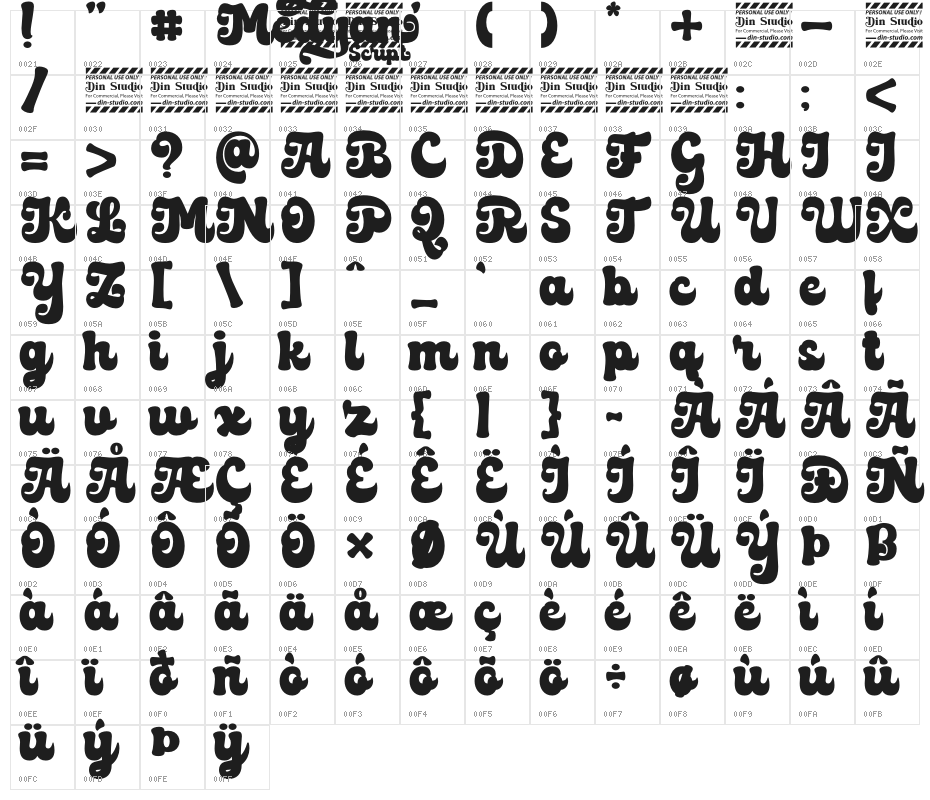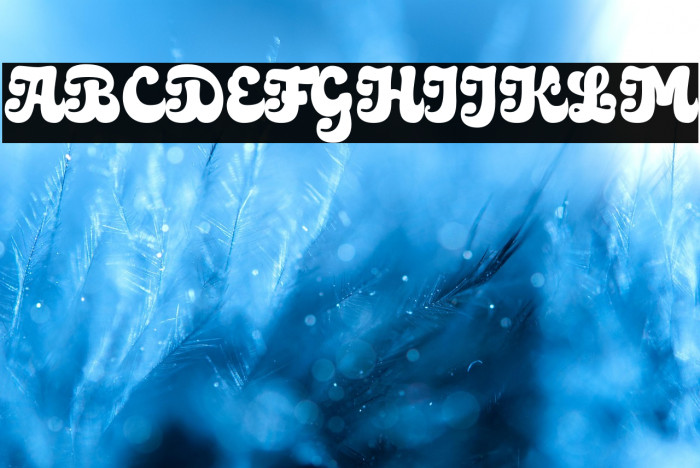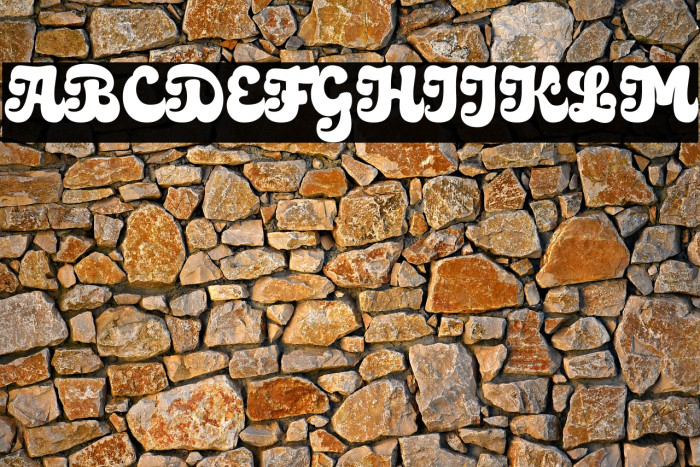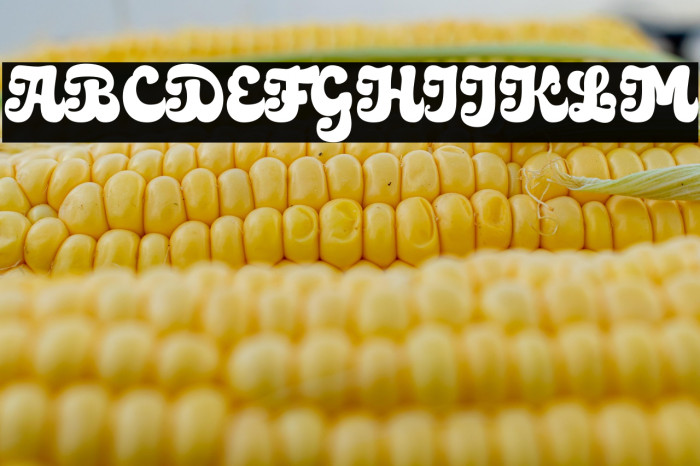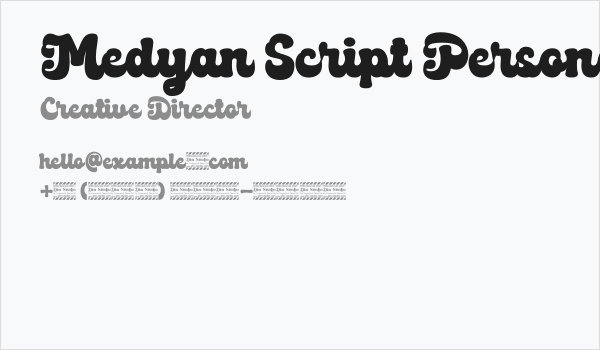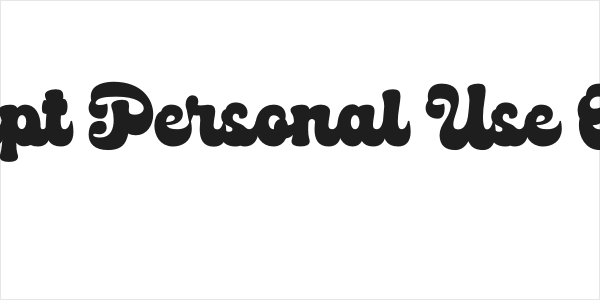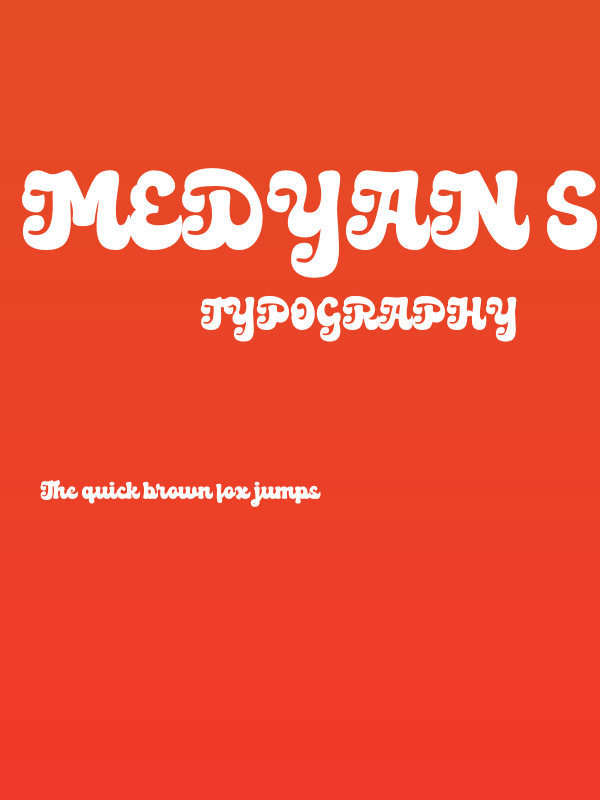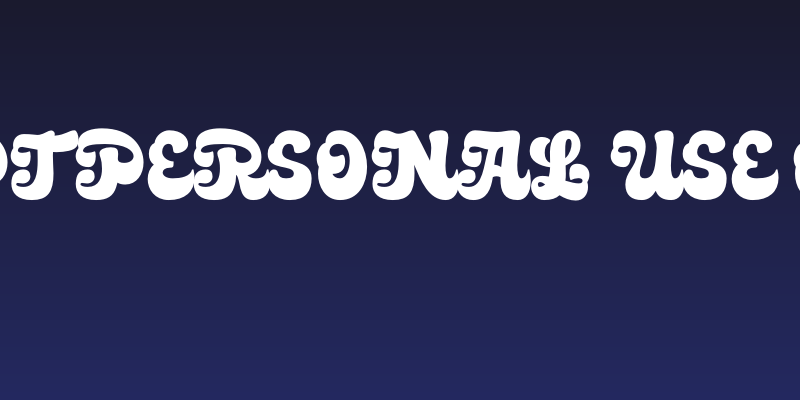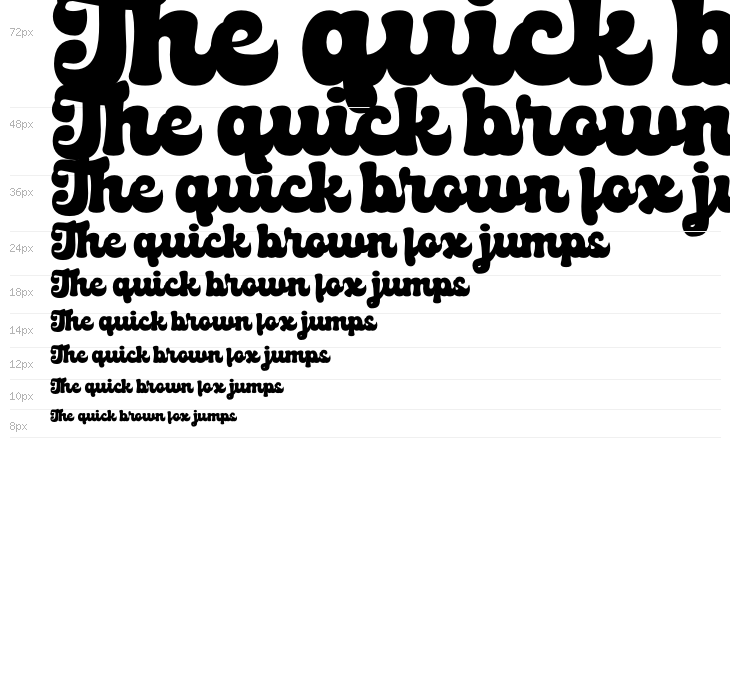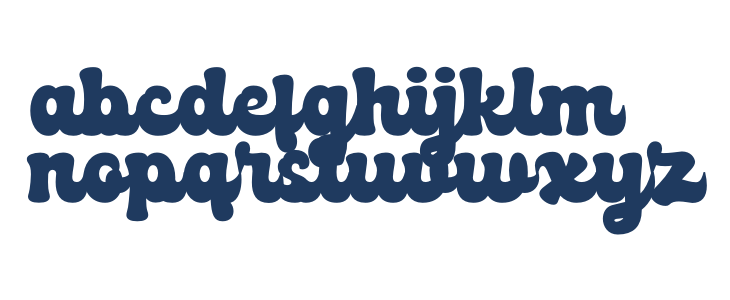
Medyan Script Personal Use Only Regular Font
Medyan Script Personal Use Only Regular Description
This font features a bold, playful script style with a strong presence. The letters are rounded and connected, giving it a cohesive and flowing appearance. The uppercase letters are particularly striking, with exaggerated curves and loops that add a whimsical touch. The lowercase letters maintain a consistent style, complementing the uppercase with their rounded forms. The numbers and special characters follow the same design principles, ensuring uniformity across all characters. This font is ideal for projects that require a fun and engaging aesthetic.
| Use Case | Logos, Headlines, Invitations |
| Proposed Projects | Ideal for branding, invitations, greeting cards, and playful graphic designs. |